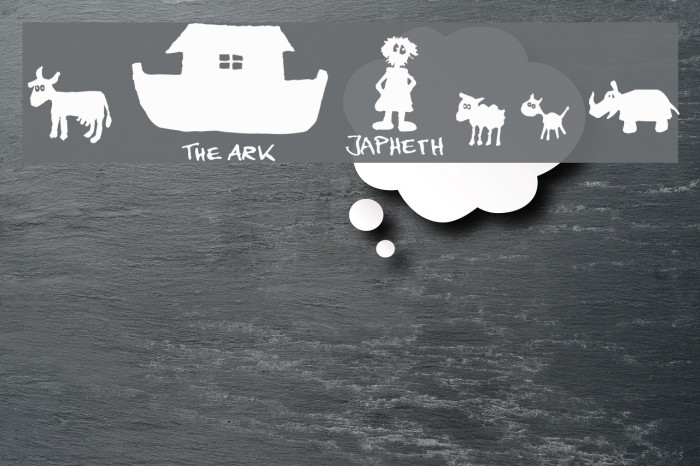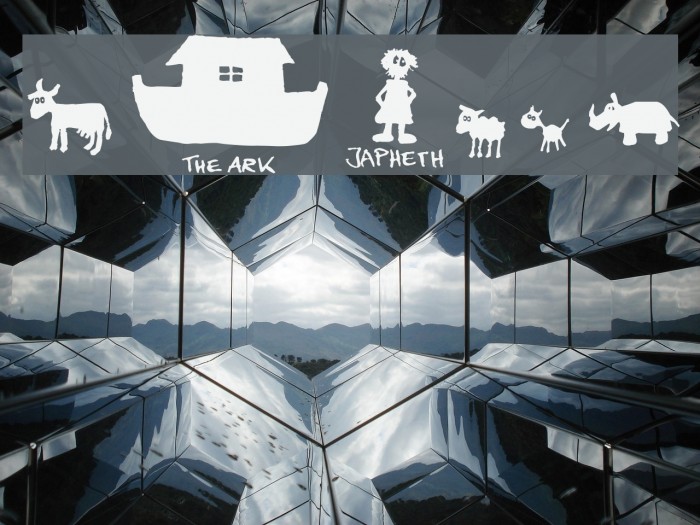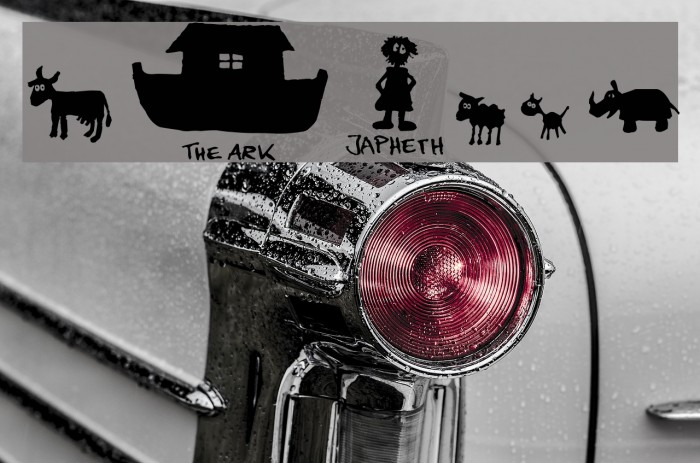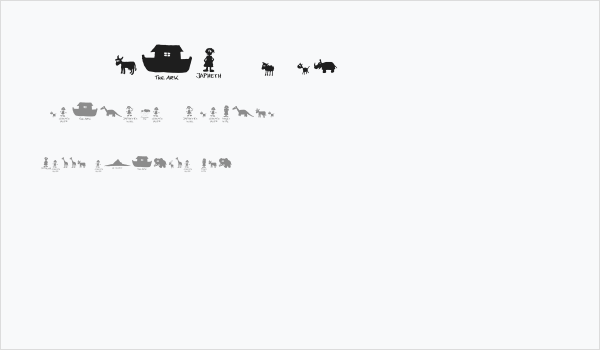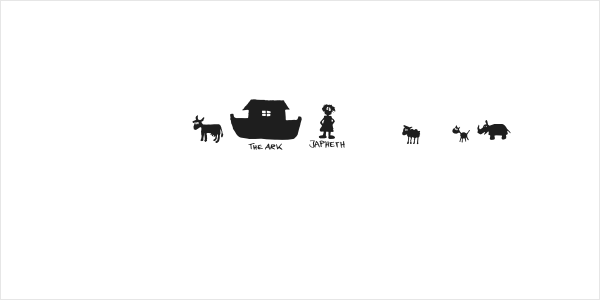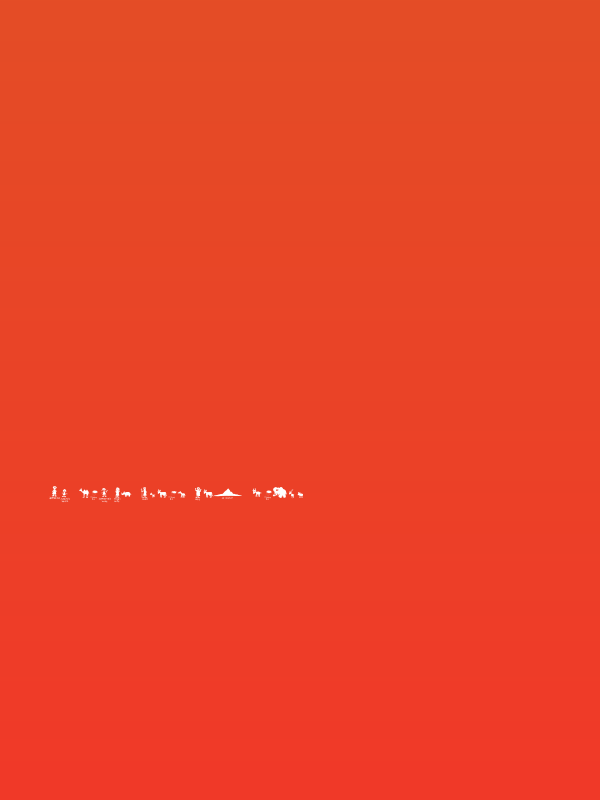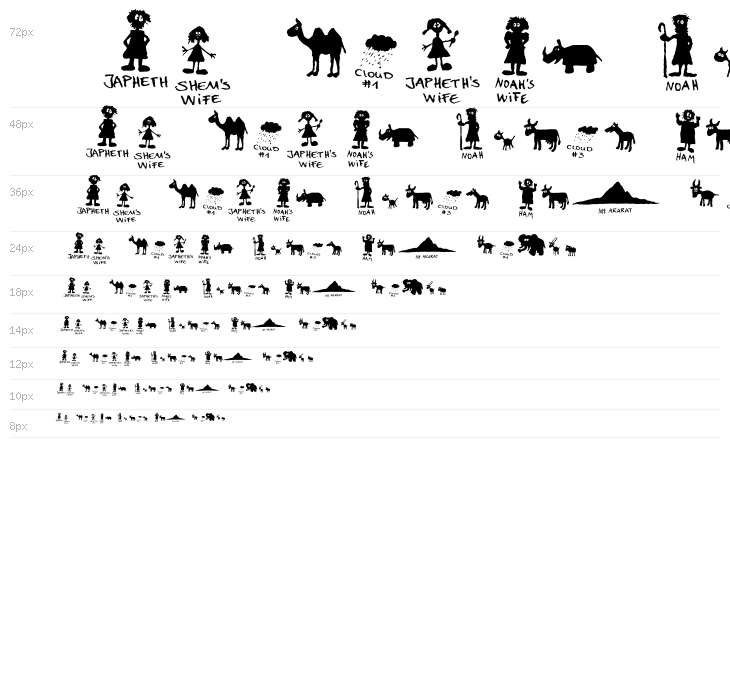
FE-Noah'sArk Font
FE-Noah'sArk Description
A playful, hand-drawn decorative font featuring whimsical illustrations and casual, uneven lettering. The characters are accompanied by simple line art drawings, giving a childlike and storybook feel. Letterforms are irregular, with varying stroke thickness and a loose, informal style.
| Overall Style | Decorative, Playful, Hand-drawn |
| Use Case | Headlines, Logos, Themed graphics, ChildrenΓ’β¬β’s materials |
| Proposed Projects | ChildrenΓ’β¬β’s books, educational materials, themed party invitations, storyboards, crafts, religious or Sunday school resources. |